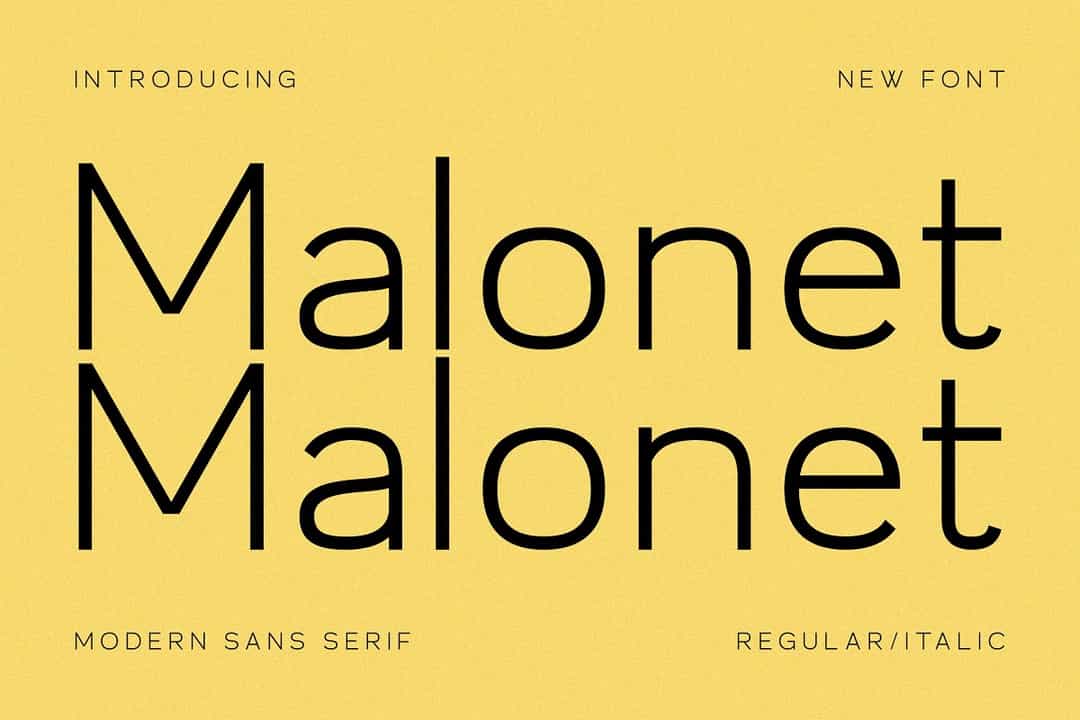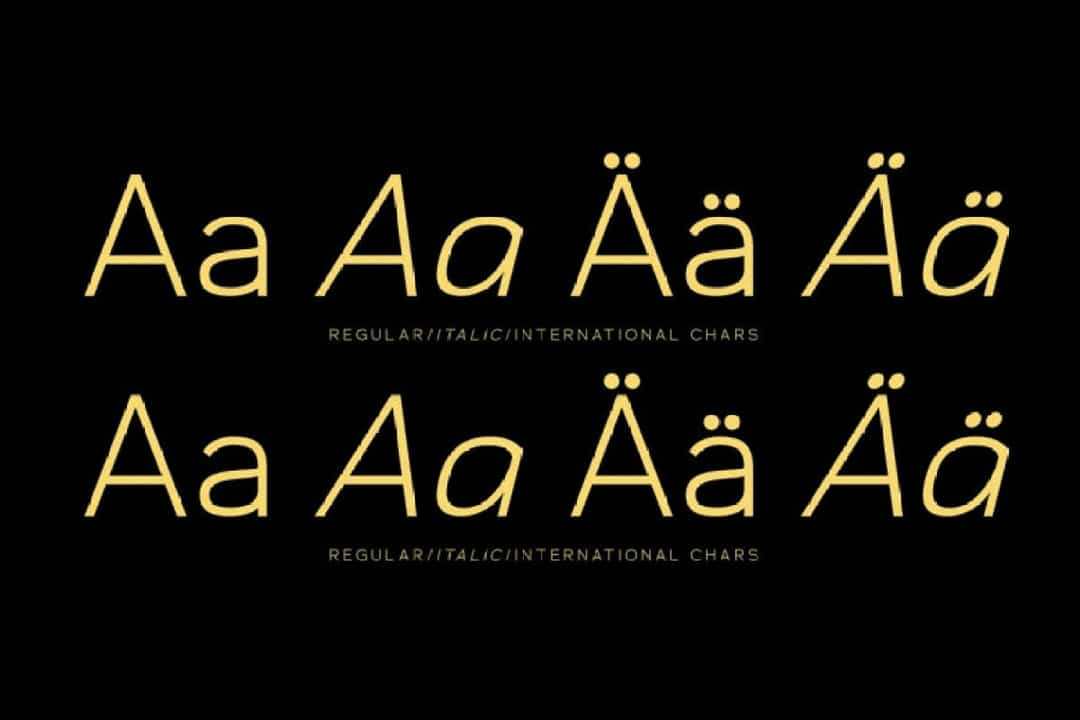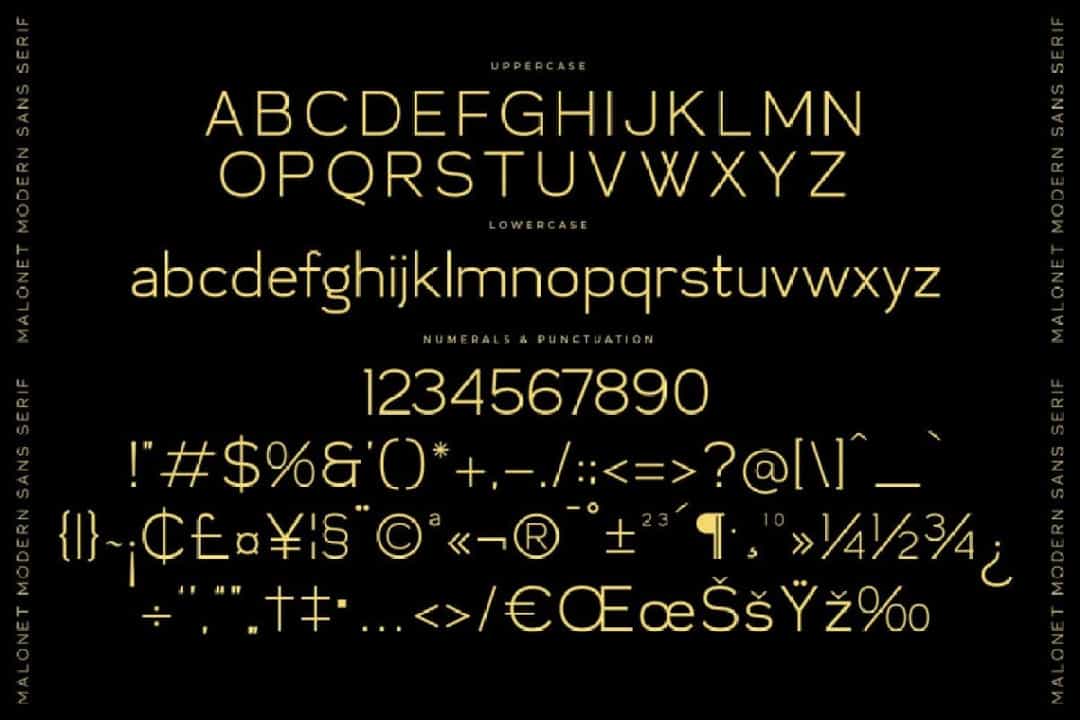
Malonet is a contemporary as well as classical sans serif font with its distinct style and modern appearance, making it the ideal font to create stylish logos, movie or book styles, fashion label magazines, clothing letters and quotes, among other projects.